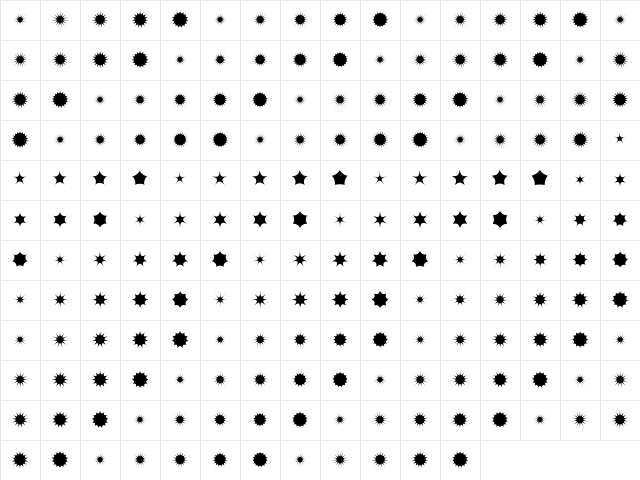
Kinkimono2 Regular
Design Context for Kinkimono2 Typeface
Kinkimono2 uses fixed-width spacing throughout, giving it the structured, systematic character associated with coding environments and technical documentation.
Well-suited to data-driven dashboards, coding tutorials, and any design that wants to reference the world of programming.
Pro Tip: Use Kinkimono2 with slightly increased line-height for extended reading — fixed-width spacing can feel dense in longer passages without extra breathing room.